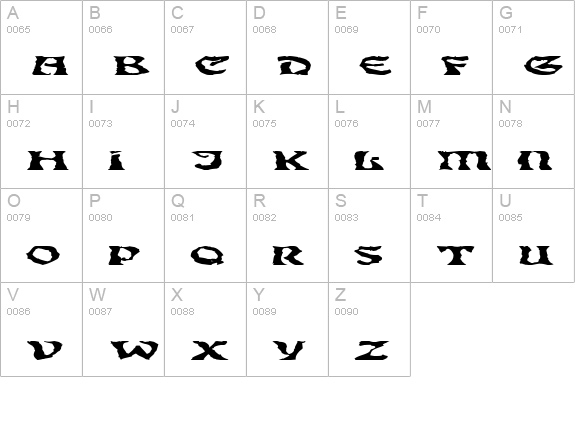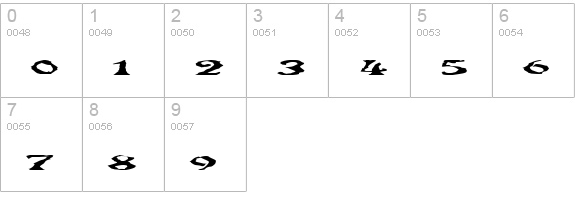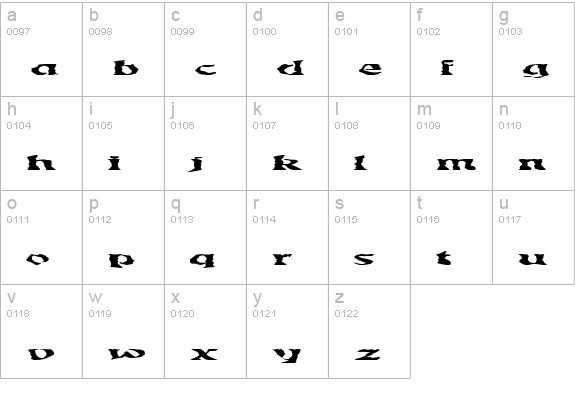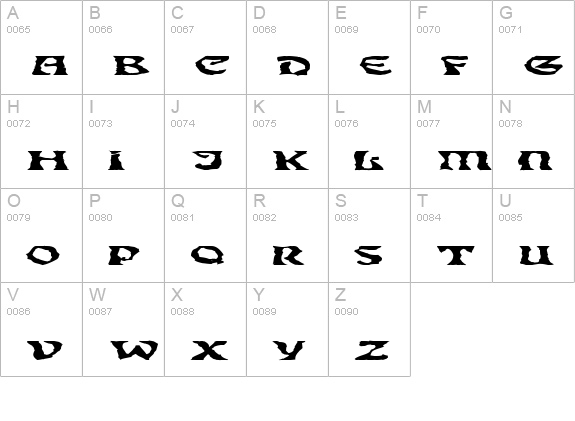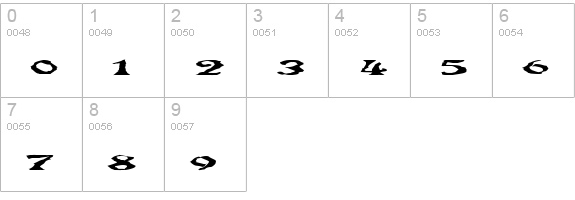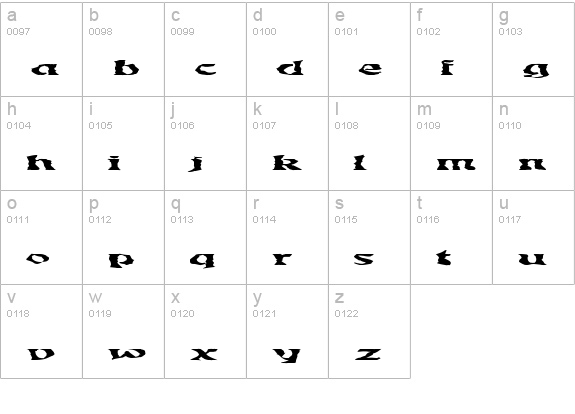
GhoulyBooly font is a spooky and whimsical typeface that is perfect for adding a touch of Halloween charm to your designs. With its ghostly appearance and playful style, GhoulyBooly is sure to catch the eye and set the mood for any project. Whether you're creating party invitations, posters, or social media graphics, this font will bring a fun and eerie element to your work. Best of all, GhoulyBooly is available for free download at FontsMarket.com. You can easily access this font and incorporate it into your design projects without any cost. Don't miss out on this opportunity to add a touch of ghoulish delight to your creations with the GhoulyBooly font, freely available for download now.